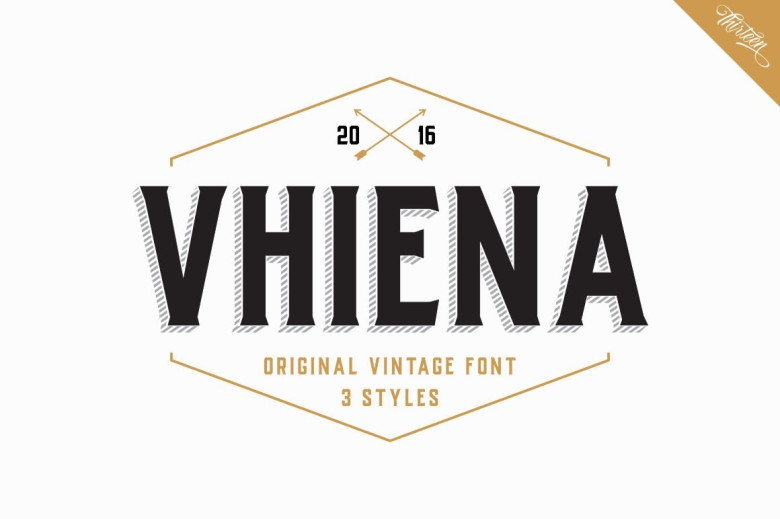
Vhiena Vintage Font
Vhiena is a vintage typeface was inspired by the likes of old serifs and classic bottles of whiskey and old labels. Vhiena is the perfect for both print and web. Create striking imagery for logos, signage, branding, apparel and much, much more. It’s clean, bold look make Vhiena a perfect match for any project.